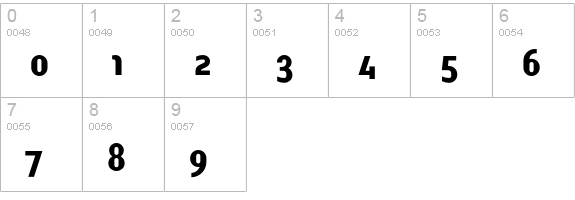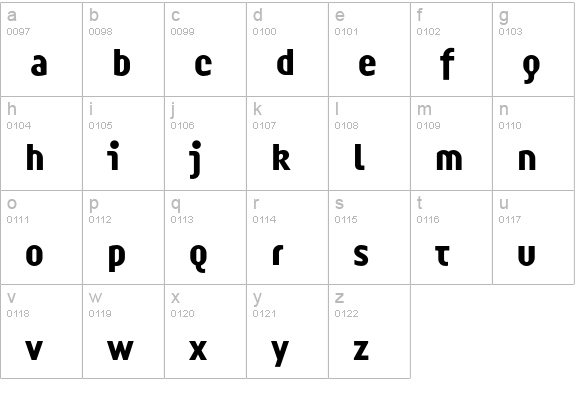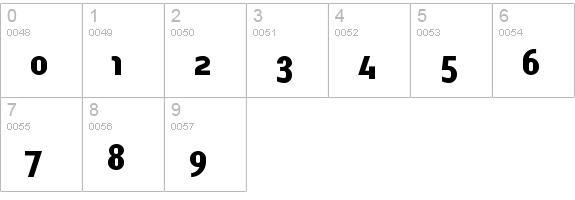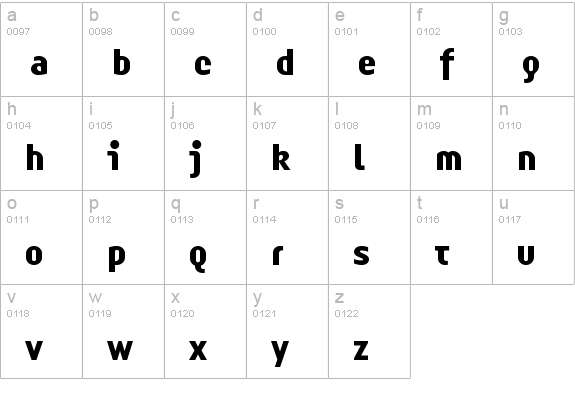
OgilveBold Font Details
Introducing OgilveBold font, a striking and versatile typeface that exudes modern elegance and timeless sophistication. With its bold and impactful design, OgilveBold is perfect for making a statement in any project, whether it be for branding, advertising, packaging, or editorial design. This font features clean lines, sharp angles, and a commanding presence that demands attention. Its versatility allows it to be used for a wide range of applications, from headlines and titles to body text and quotes. OgilveBold strikes the perfect balance between professionalism and creativity, making it a go-to choice for designers looking to elevate their typography game. The best part? OgilveBold is completely free to download at FontsMarket.com, making it accessible to all designers and creatives looking to add a touch of sophistication to their projects without breaking the bank. Don't miss out on this opportunity to enhance your designs with the bold and beautiful OgilveBold font. Download it today and let your creativity soar!